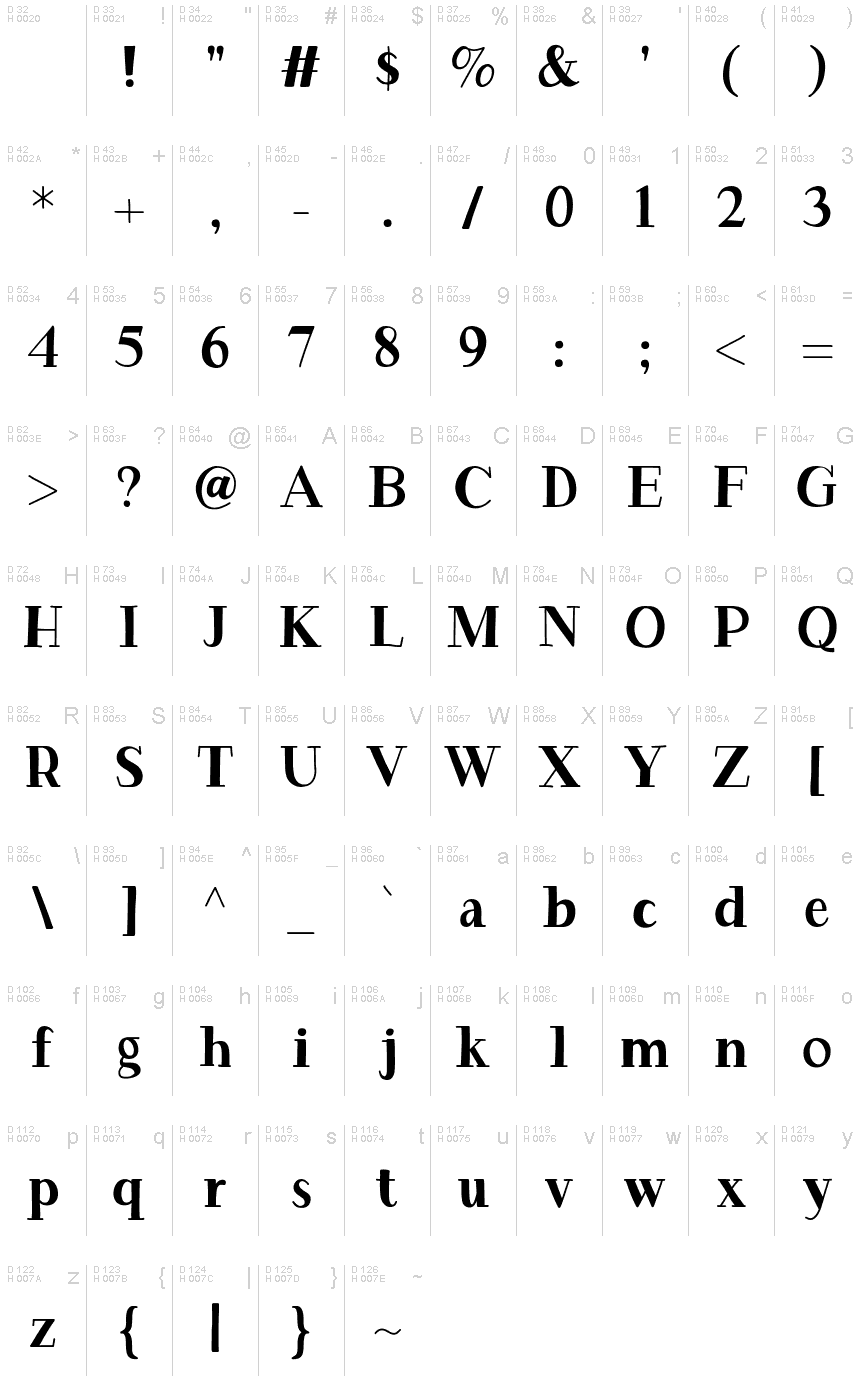
Citylines
Citylines, created by Khurasan, is a bold display font that exudes modernity and cuteness.
With its attractive serifs, it is perfect for a wide range of projects such as posters, logos, magazines, book covers, and banners. Add this amazing font to your design toolkit and watch your creative ideas come to life with its unique charm.
Whether you're working on branding or advertising campaigns, Citylines will make your designs stand out from the crowd.